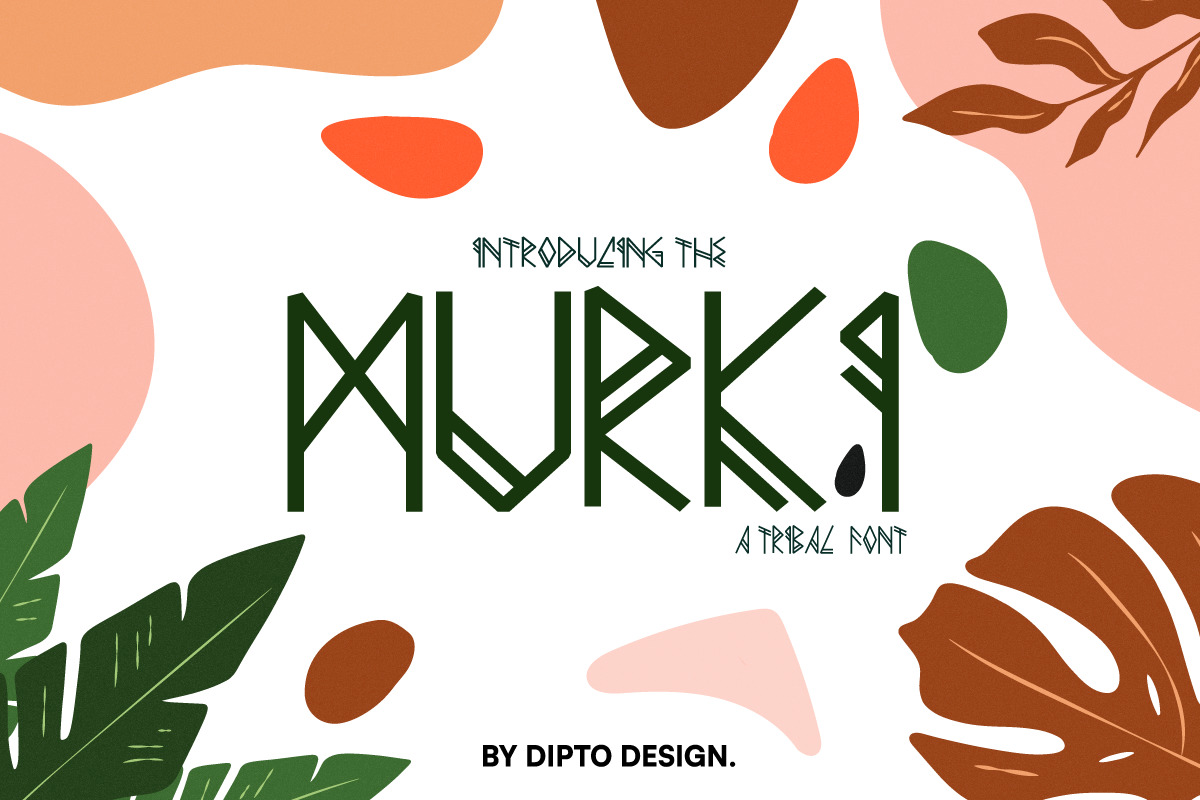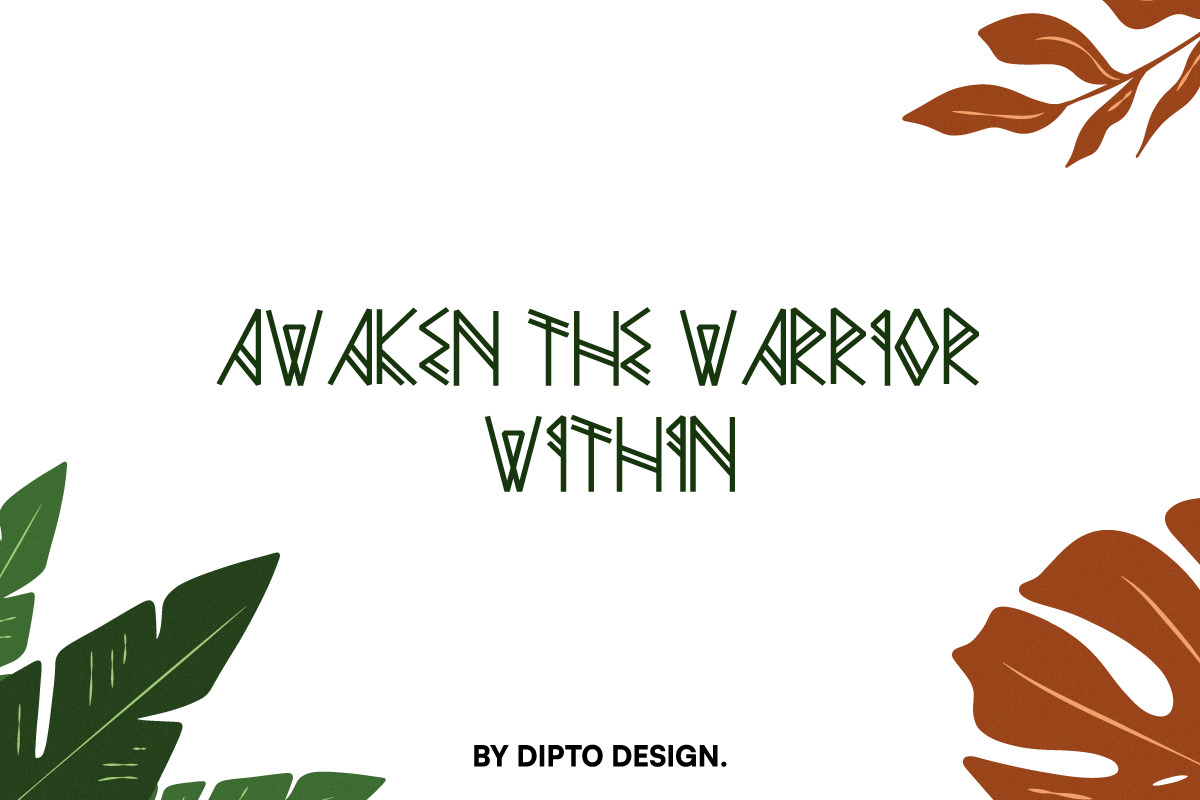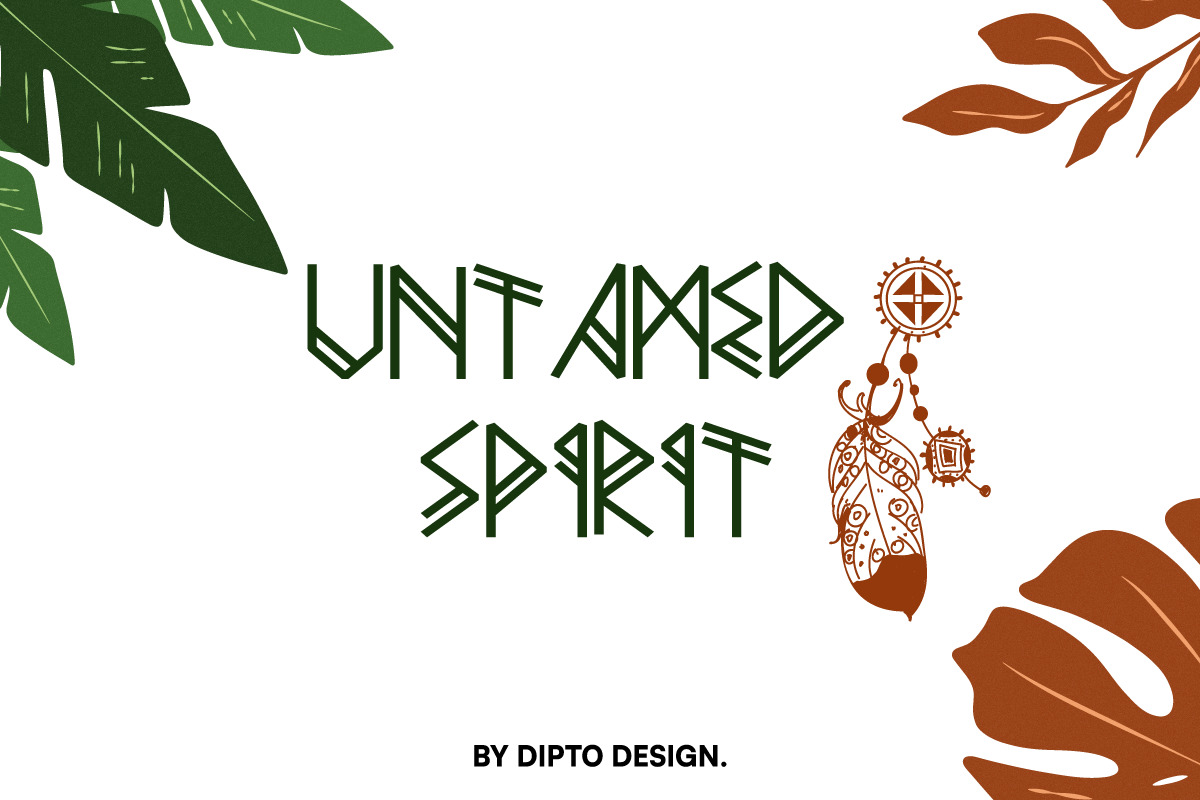
Murki - A Tribal Font
Dive into the untamed spirit of Murki, a hand-crafted tribal font that pulsates with primal energy. Inspired by ancient markings and warrior symbolism, Murki's bold strokes and organic textures ignite a connection to the untamed and untamed within.
Crafted for:
Logo Design & Branding: Make a lasting impact with logos and identities that roar with raw power.
Packaging & Apparel: Design packaging and apparel that resonates with an adventurous, untamed spirit.
Marketing Materials & Posters: Create marketing materials and posters that command attention and ignite curiosity.
Web Design & Social Media: Add a touch of primal energy to your web presence and social media graphics.
Tattoo & Art Design: Explore the expressive potential of Murki in unique tattoo and art designs.
What makes Murki unique:
Hand-Crafted Authenticity: Each letterform pulsates with the raw energy of hand-drawn strokes.
Tribal Inspiration: Deeply rooted in ancient symbolism, Murki evokes a sense of mystery and power.
Bold & Expressive: Unleash the untamed spirit in your designs with Murki's impactful presence.